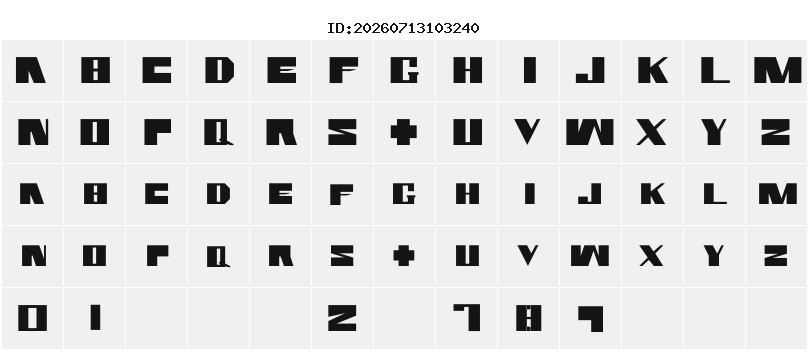
• Font Name: Rammstein Fonts
• Font ID: Rammstein Font Made By: AiR
• Full Font Name: Rammstein Font Made By: AiR
• Designer: AiR
• Description: Rammstein Font made BY: AiR
About Rammstein Fonts.ttf
Rammstein Fonts.ttf is a modern, elegant sans-serif font designed for ultimate readability and visual harmony. Perfect for branding, headlines, web design, and print materials.